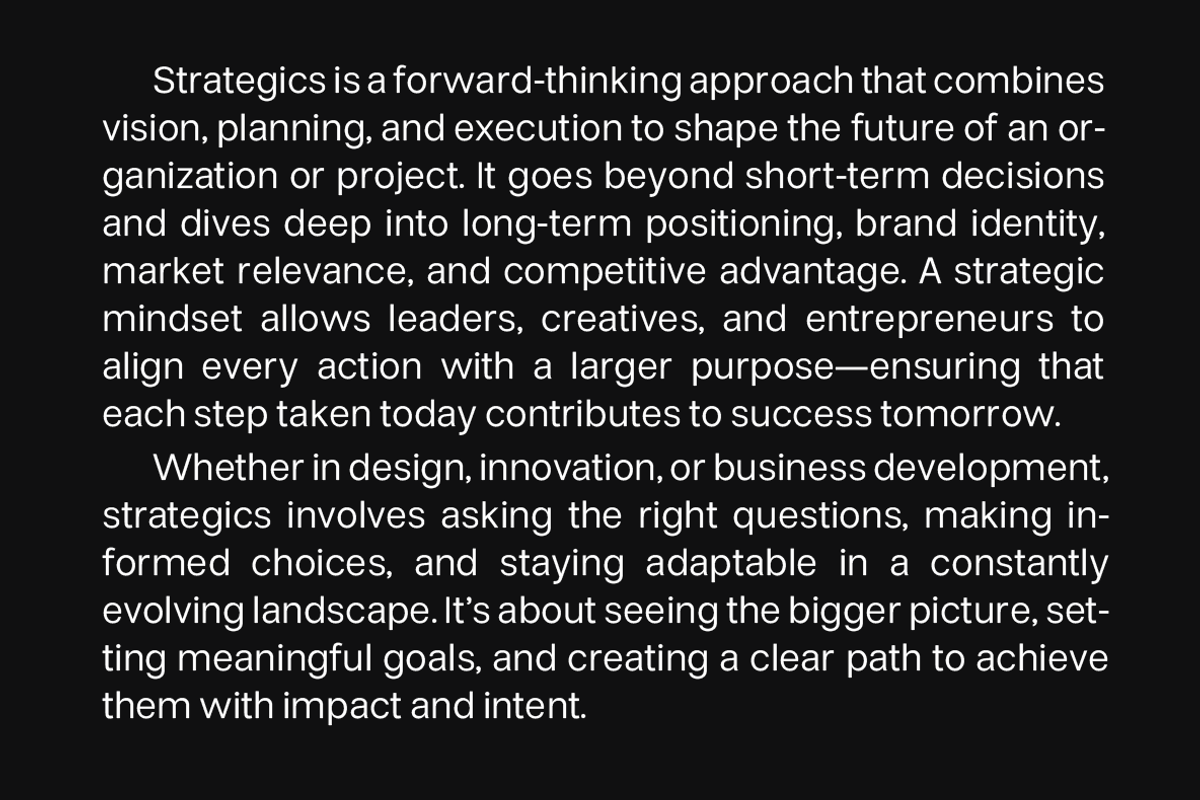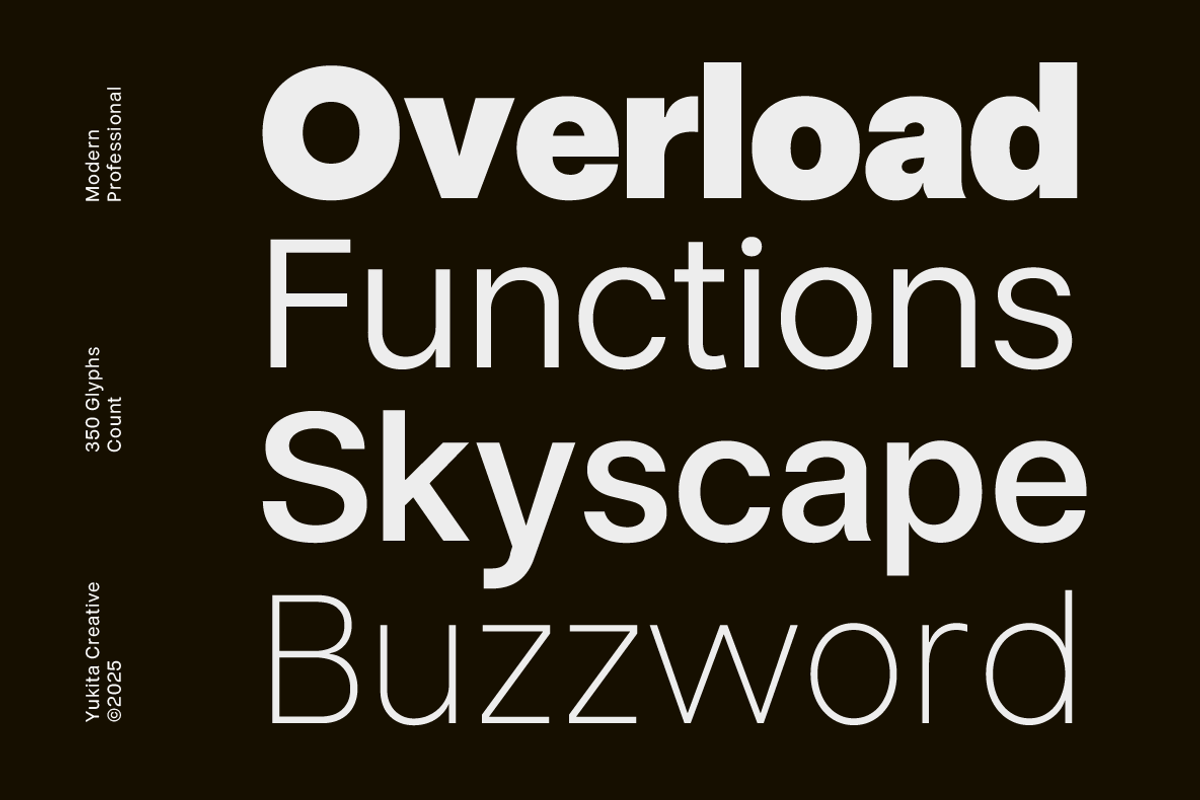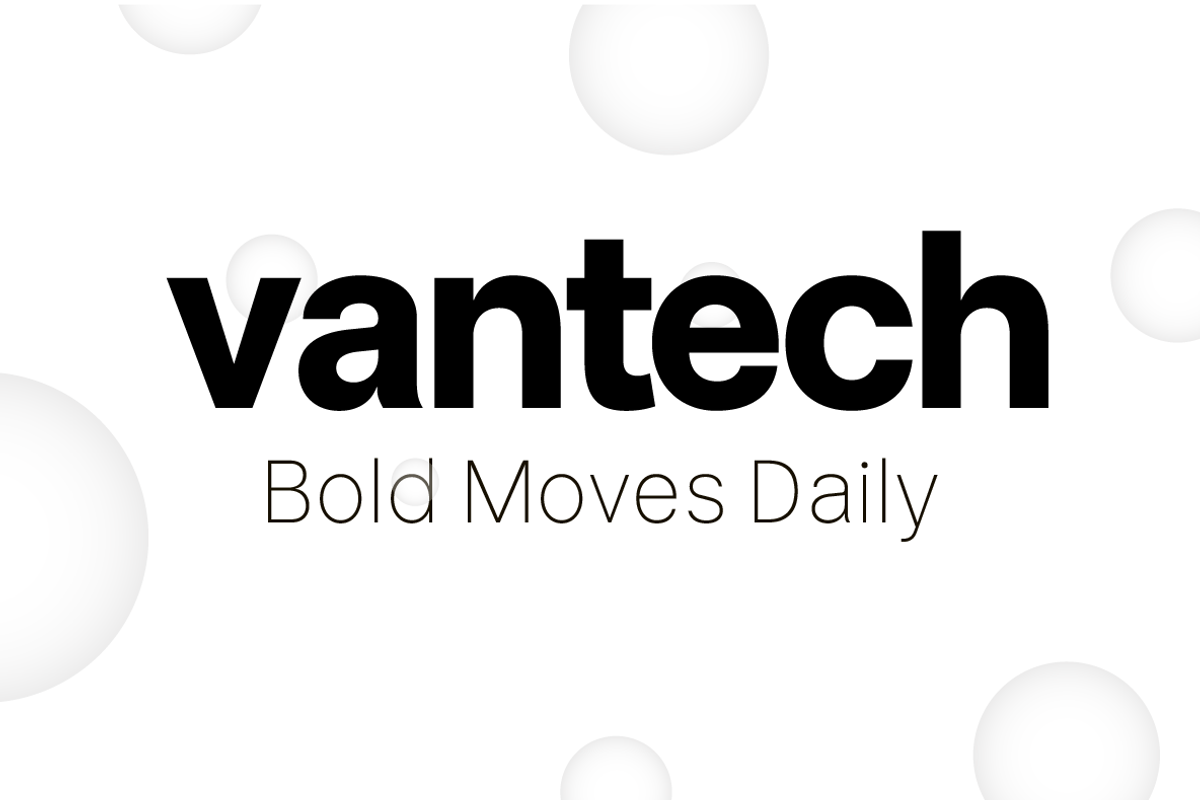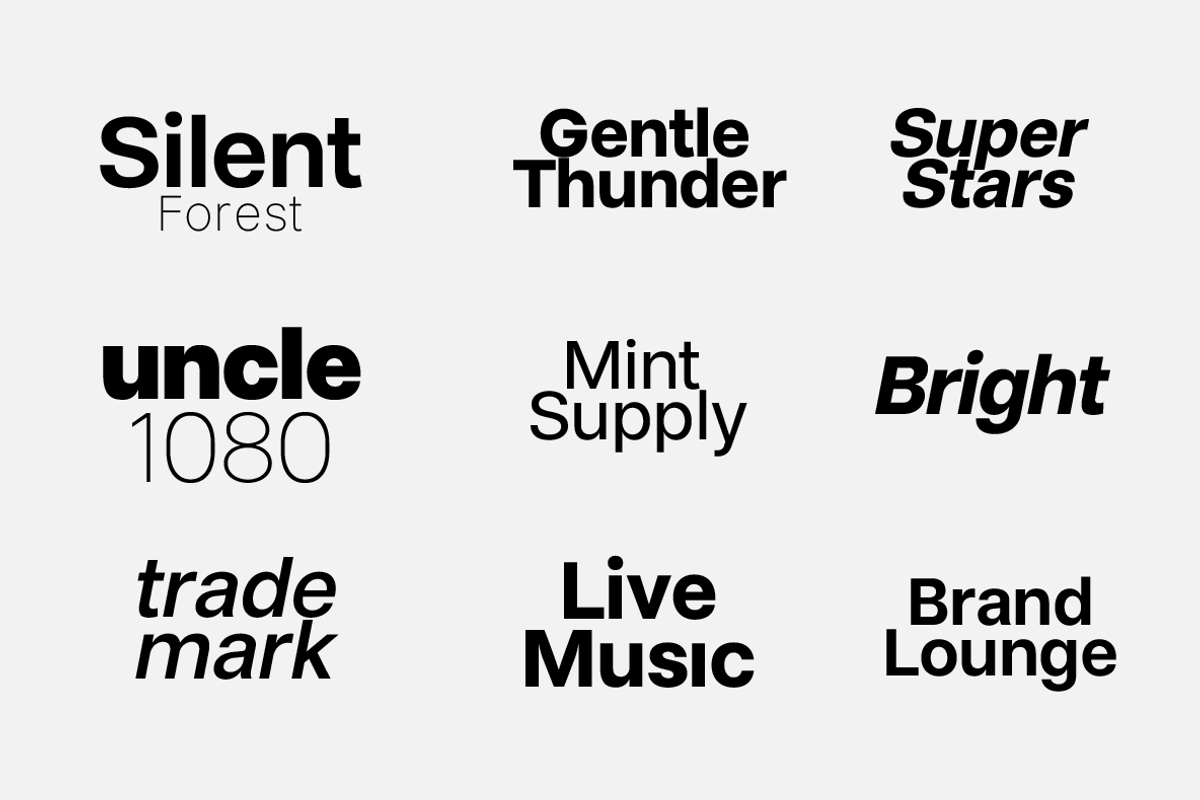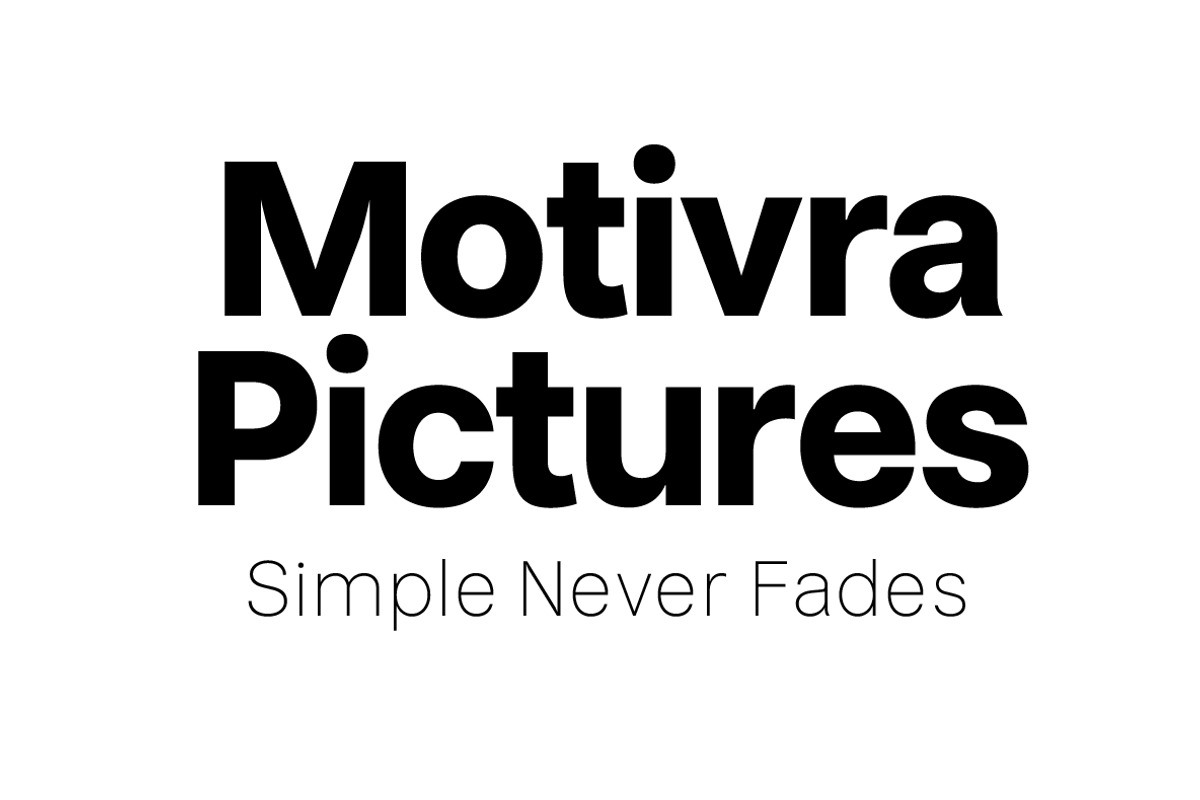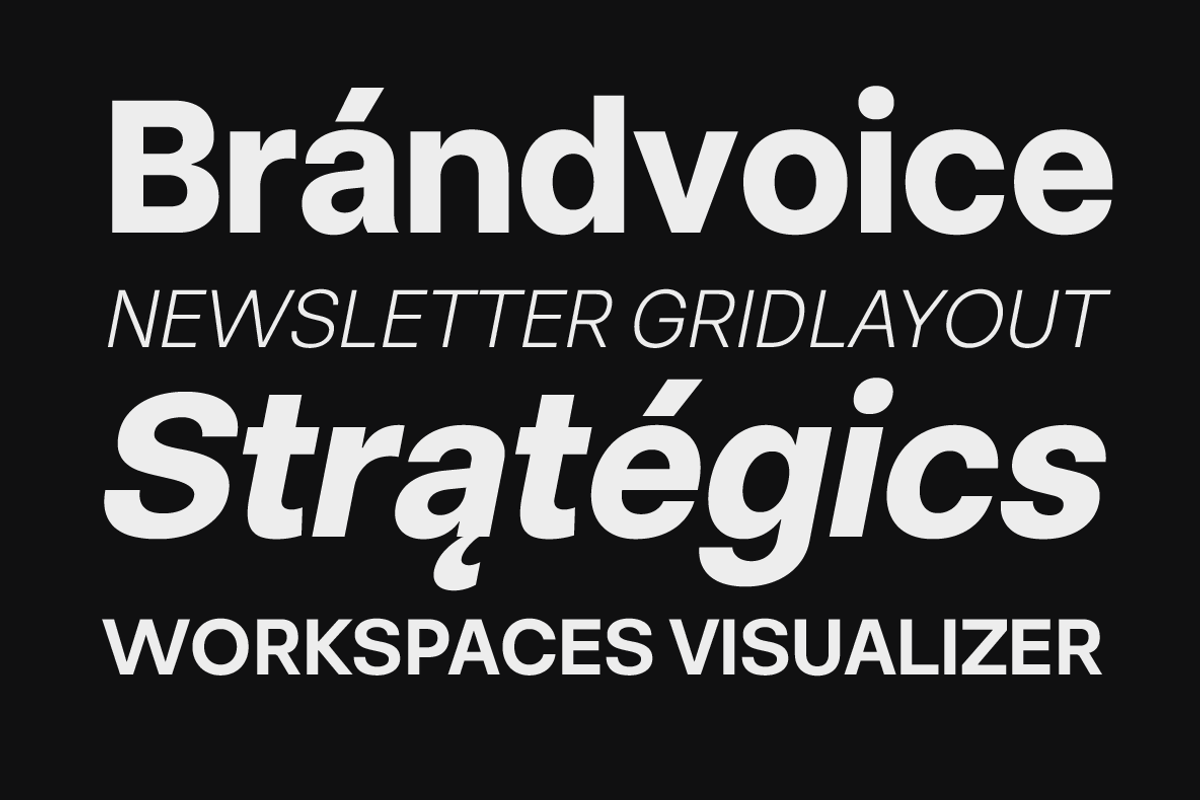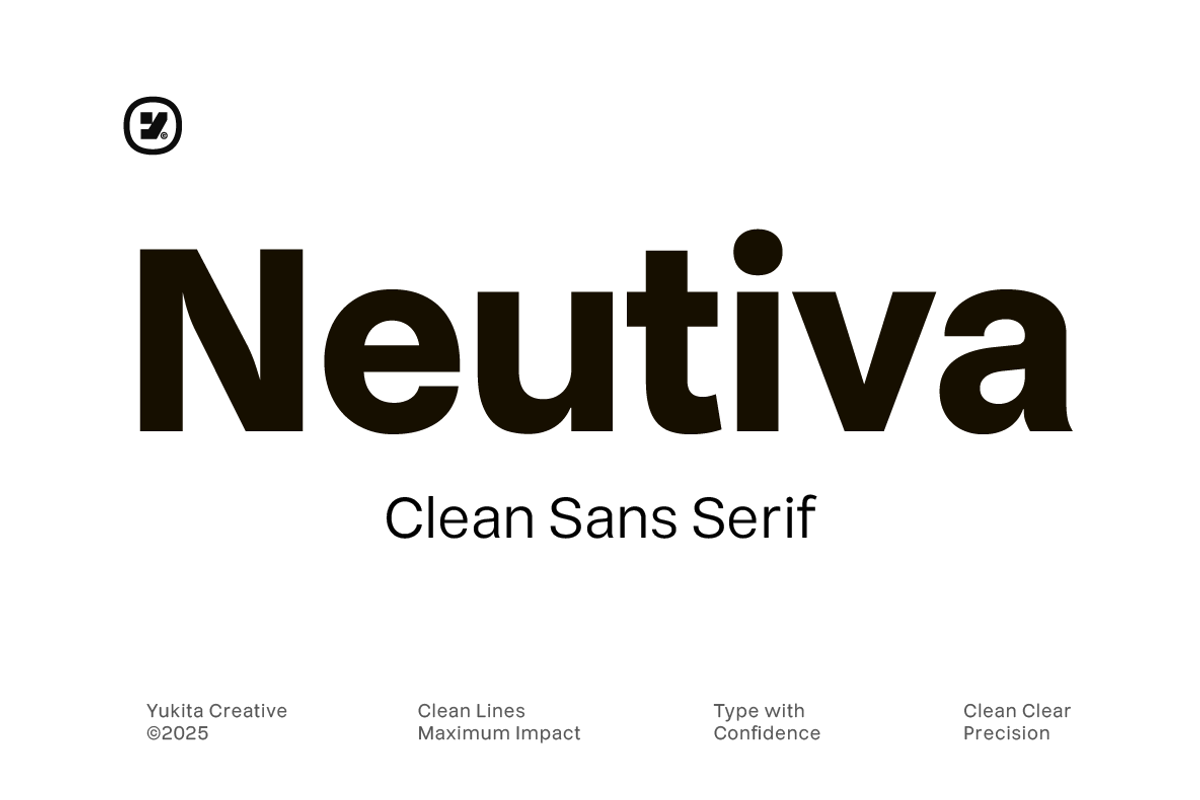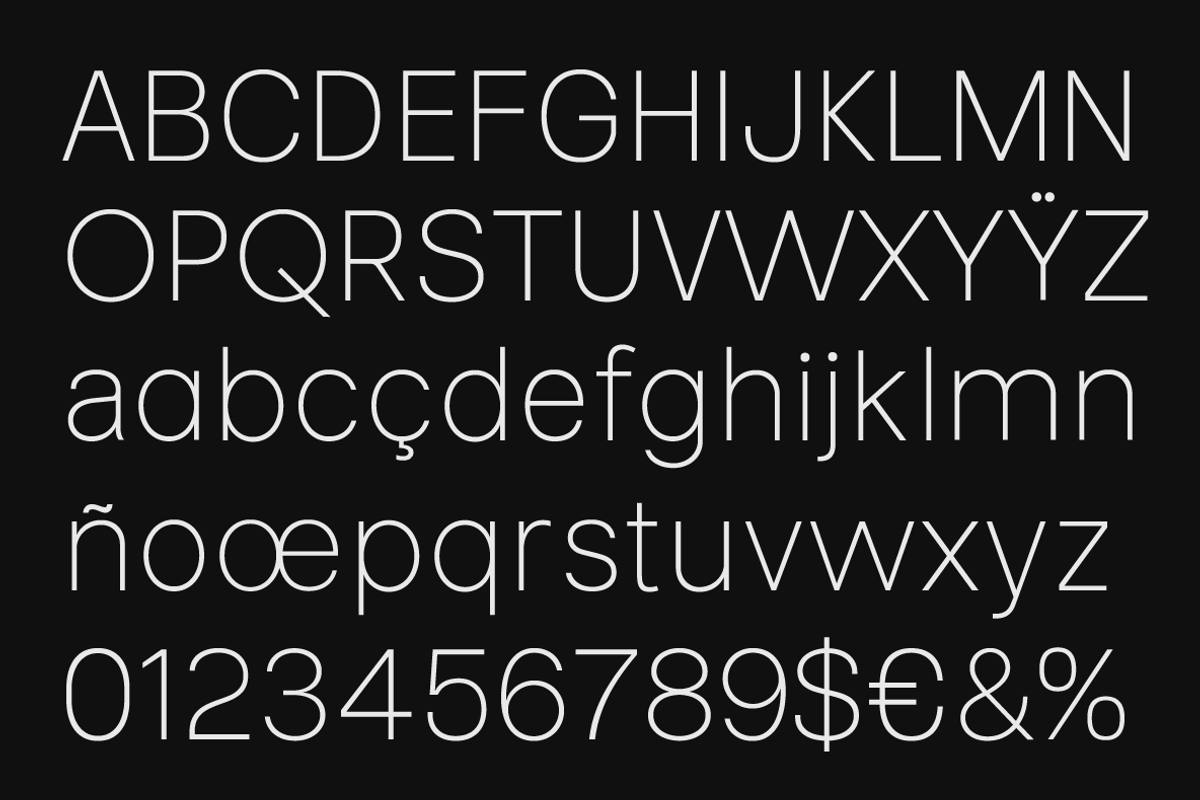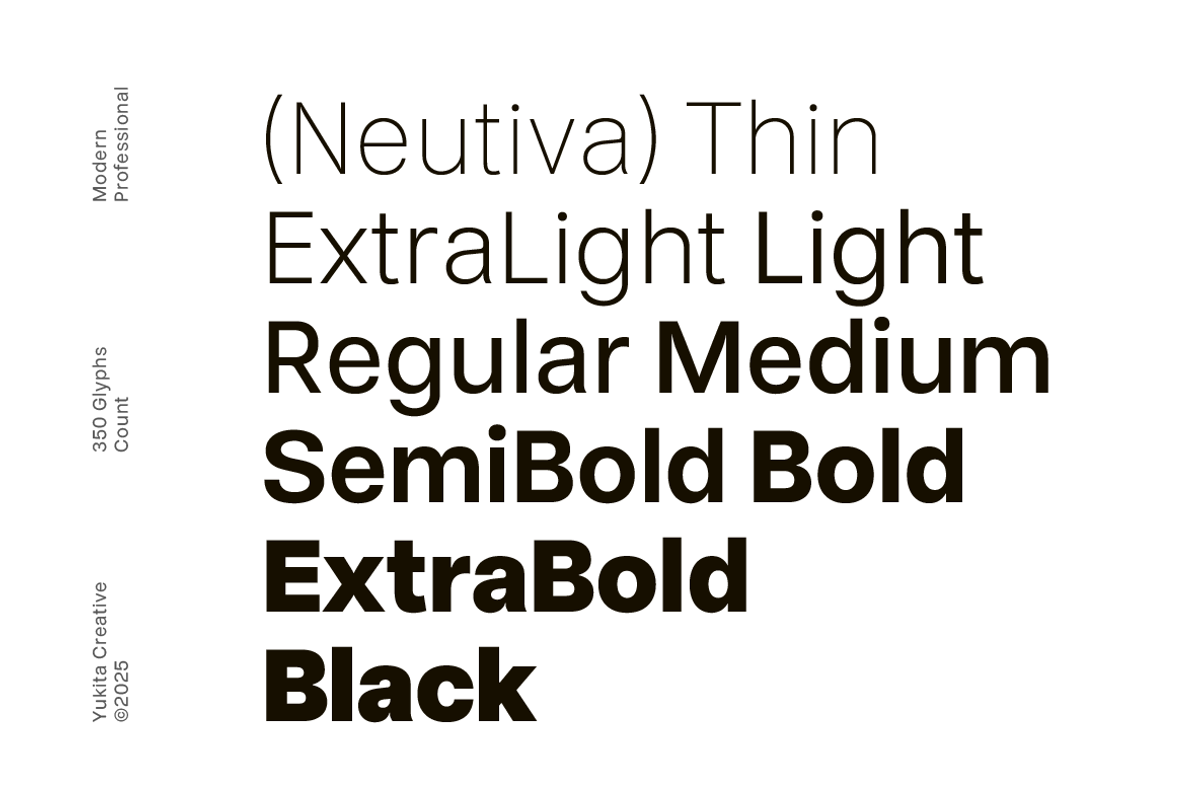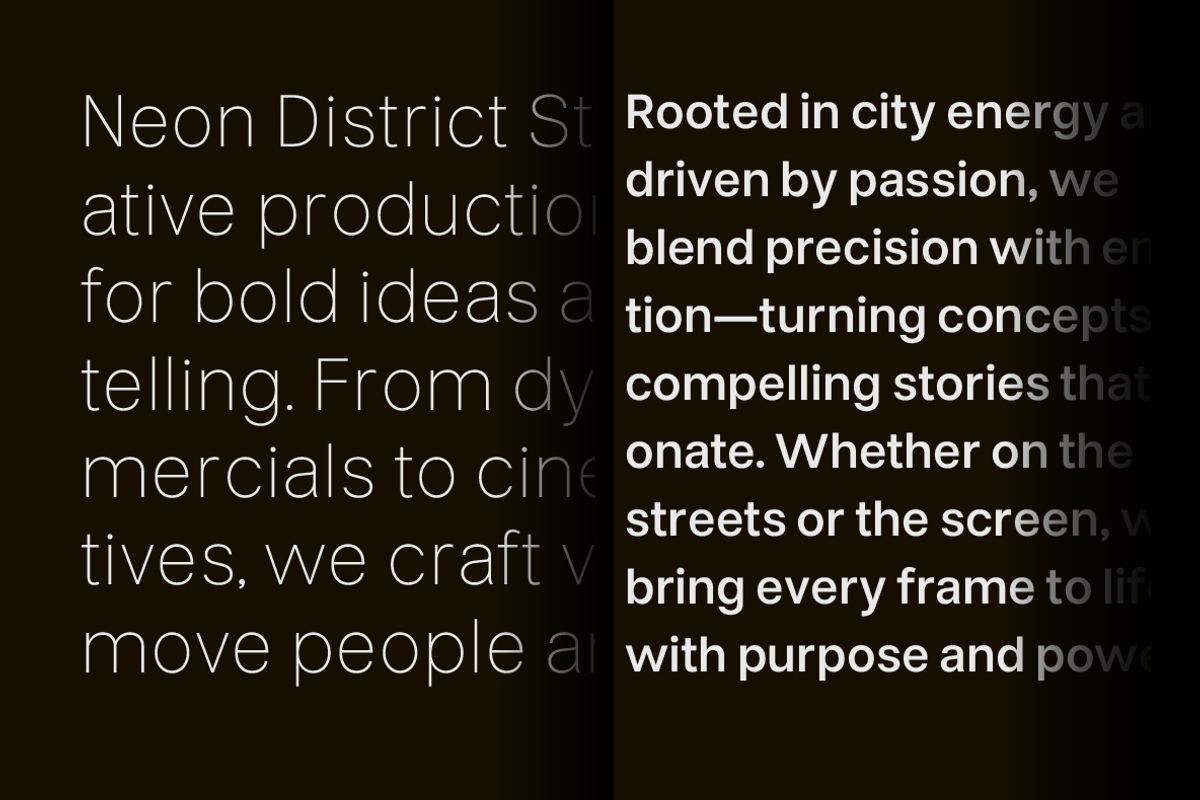
Neutiva Clean Sans Serif
Neutiva is a modern sans serif font specially designed for corporate logo, branding, and professional design needs. It comes in 9 styles: Thin, Extra Light, Light, Regular, Medium, SemiBold, Bold, Extra Bold, and Black.
This Neo Grotesk typeface offers high readability, clean shapes, and modern proportions — perfect for creating company logos, corporate branding, business identities, and logo designs. Whether you're building a corporate logo, website header, or presentation design, Neutiva gives a neutral and modern tone that works across all mediums.
- 9 Font Styles (Thin to Black)
- High readability for corporate use
- Ideal for logo, branding, headline, and UI
- Modern sans serif with Neo Grotesk feel